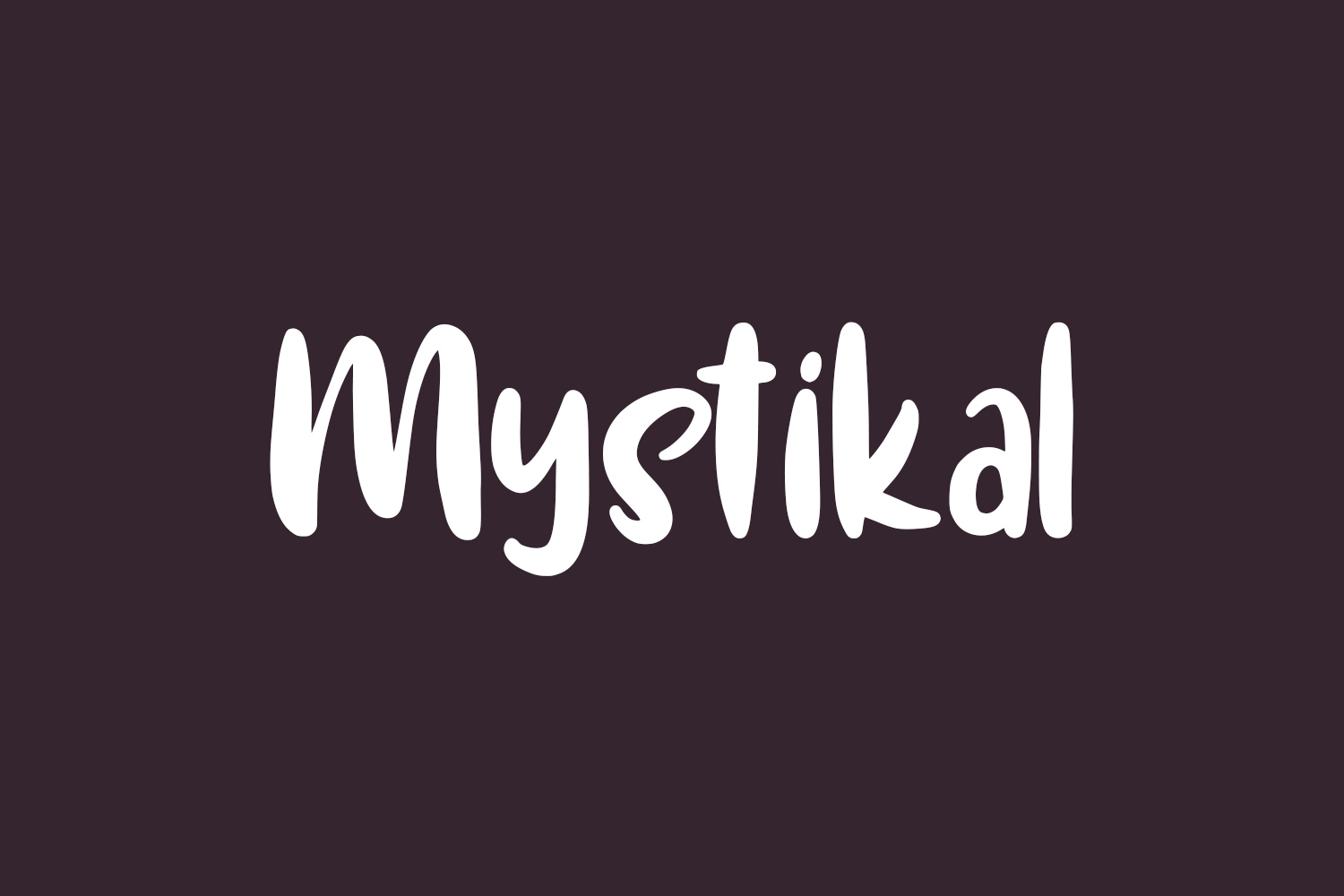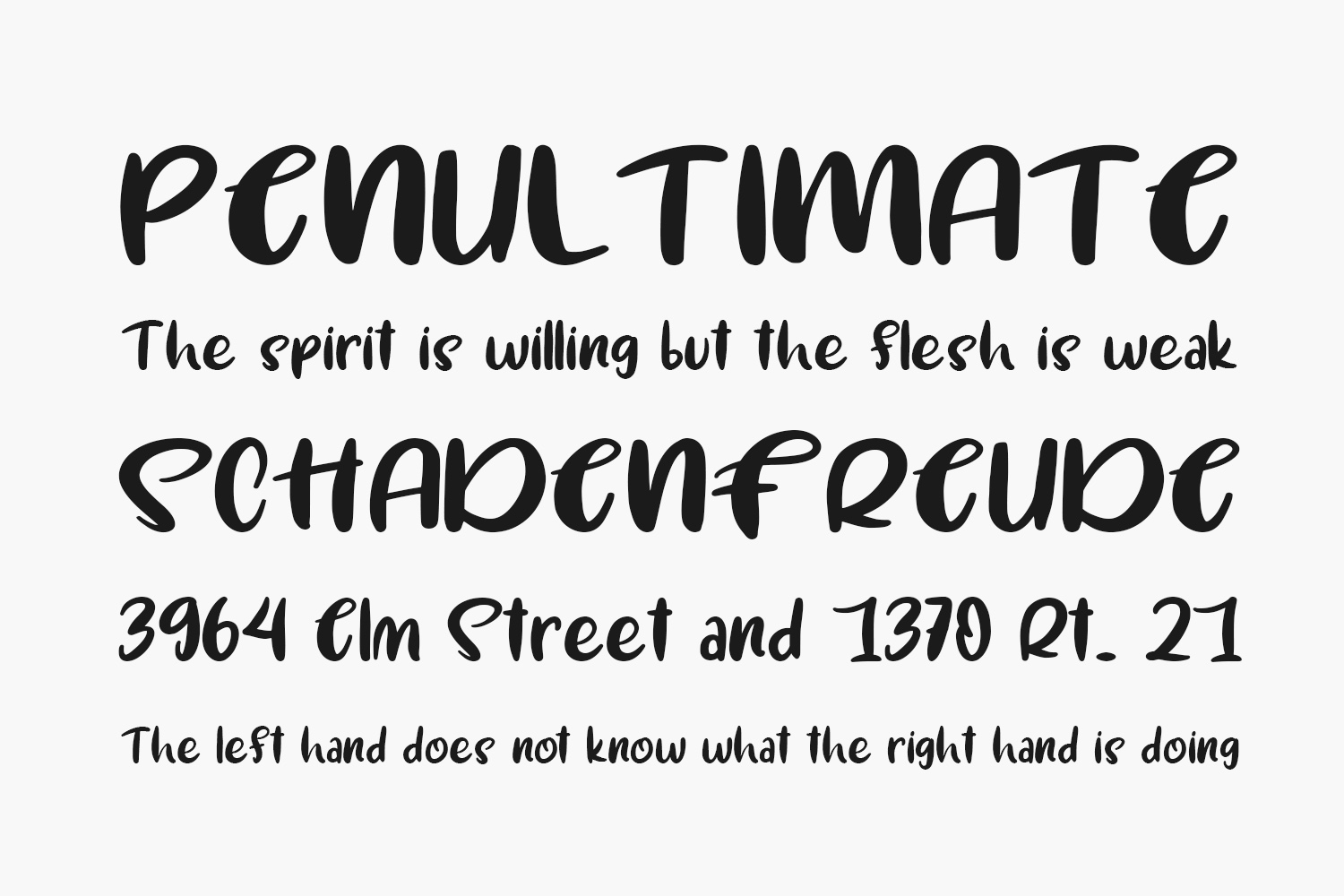
Mystikal Free Font is a cool, playful, and fun display font. This original look will appeal to a wide range of crafty ideas, from letterheads and titles to stationery. Mystikal Free Font was designed by Nomlimofont and is free for personal use only. Please purchase the full version for commercial use.